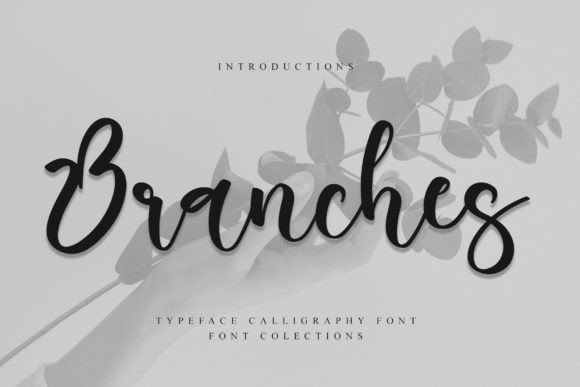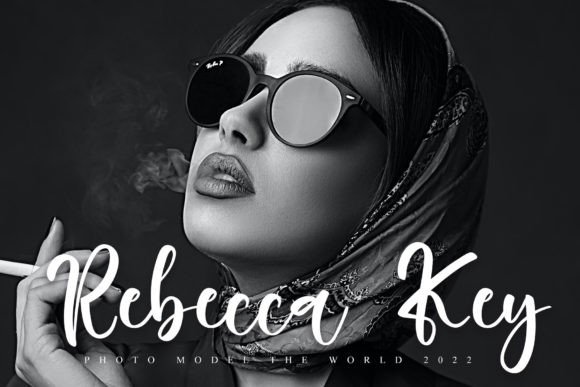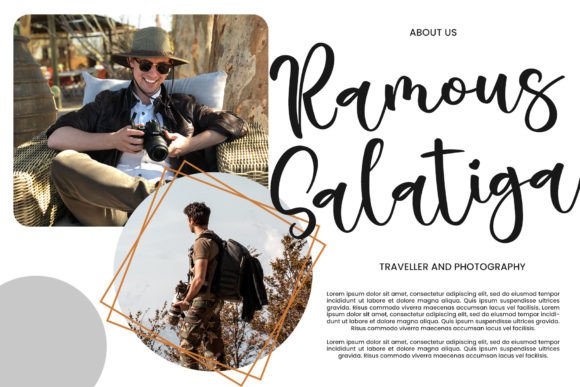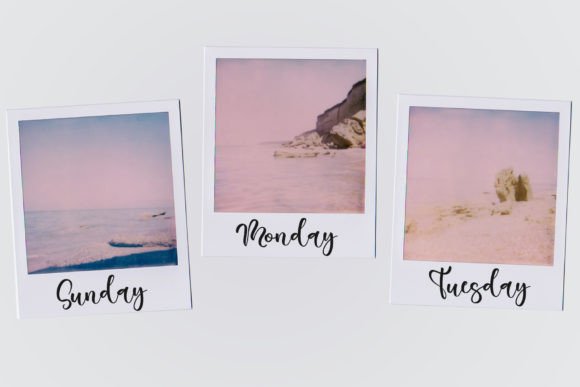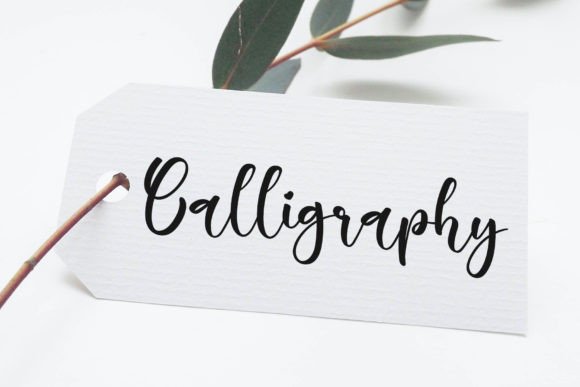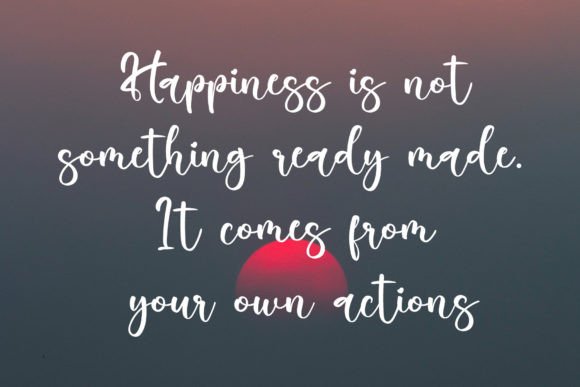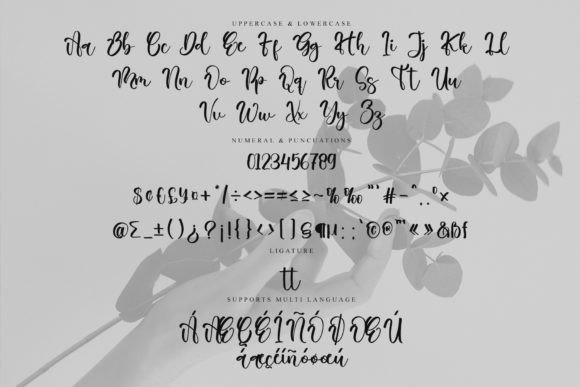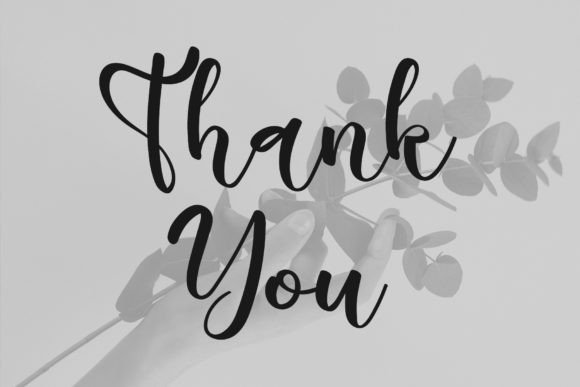
Branches Font
About Branches Font
Branches is not just a font; it’s a stylish and dainty script font that adds a touch of elegance to a variety of design projects. Whether you’re working on logos, branding projects, labels, photography, watermarks, special events, or any other lovely creative endeavor, Branches brings a beautiful script taste to your designs.
The stylish and dainty nature of Branches sets it apart, making it particularly well-suited for projects that require a refined and elegant aesthetic. Its script design adds a sense of sophistication, making it an excellent choice for logos and branding where a distinctive and memorable visual identity is desired.
In branding projects, Branches becomes a valuable asset. Its stylish script contributes to the overall elegance of logos and other brand elements, creating a cohesive and sophisticated brand image. The font ensures that your brand stands out with a beautiful and distinctive script taste.
Labels and packaging designs benefit from the dainty and elegant qualities of Branches. The font adds a touch of refinement to product labels, enhancing the overall visual appeal. Whether used for cosmetics, beverages, or other products, Branches brings a sense of beauty to the packaging.
Photography watermarks gain an extra layer of sophistication with Branches. Its stylish script becomes a signature element, adding a personalized and elegant touch to your photographic work. The font ensures that your watermark is not just functional but also contributes to the overall aesthetic.
Special events, such as weddings or formal gatherings, find an ideal companion in Branches. The font’s dainty and beautiful script becomes a key element in creating invitations, place cards, and other materials that reflect the elegance of the occasion.
The fact that Branches is PUA encoded enhances its accessibility, allowing you to easily access all of the glyphs and swashes. This feature adds an extra layer of customization, giving you the flexibility to tailor the font to suit the specific needs of your projects.
In summary, Branches is more than just a font; it’s a design tool that adds a stylish and dainty script to your creative projects. Its elegance, combined with the convenience of PUA encoding, ensures that it complements a wide range of designs, creating outcomes that are both beautiful and sophisticated.